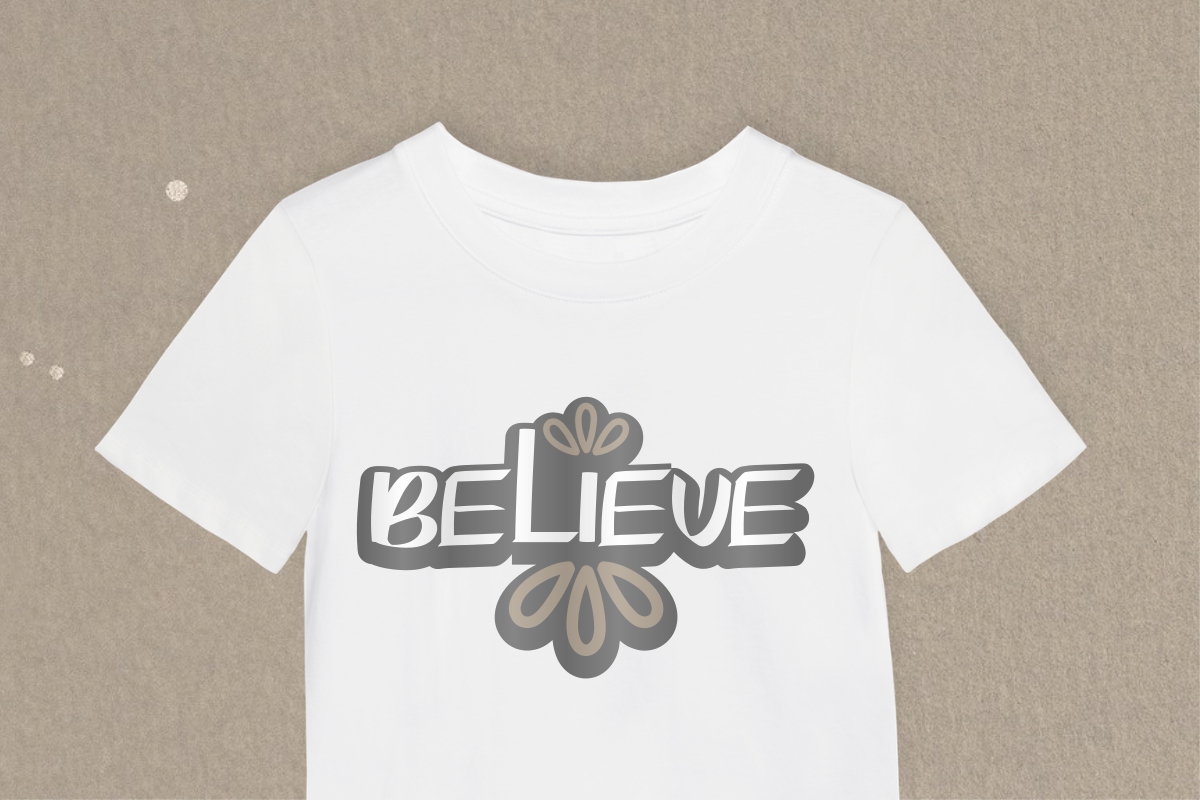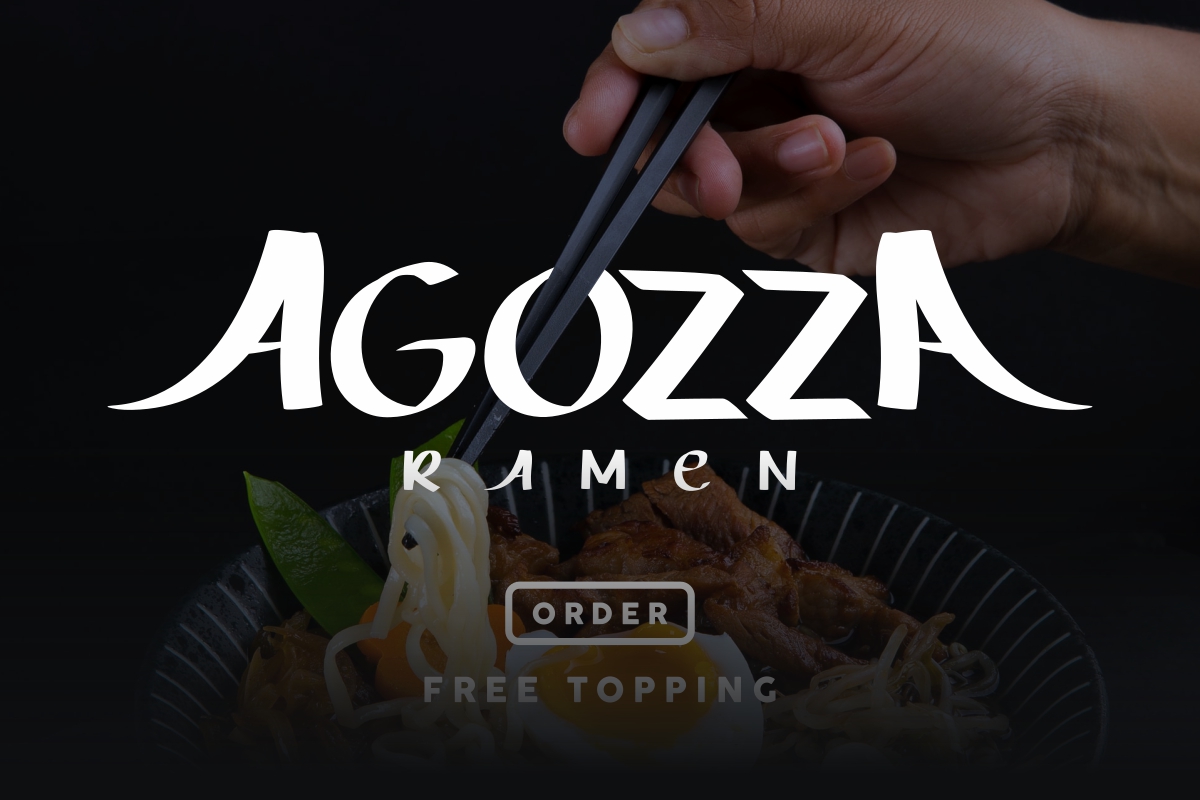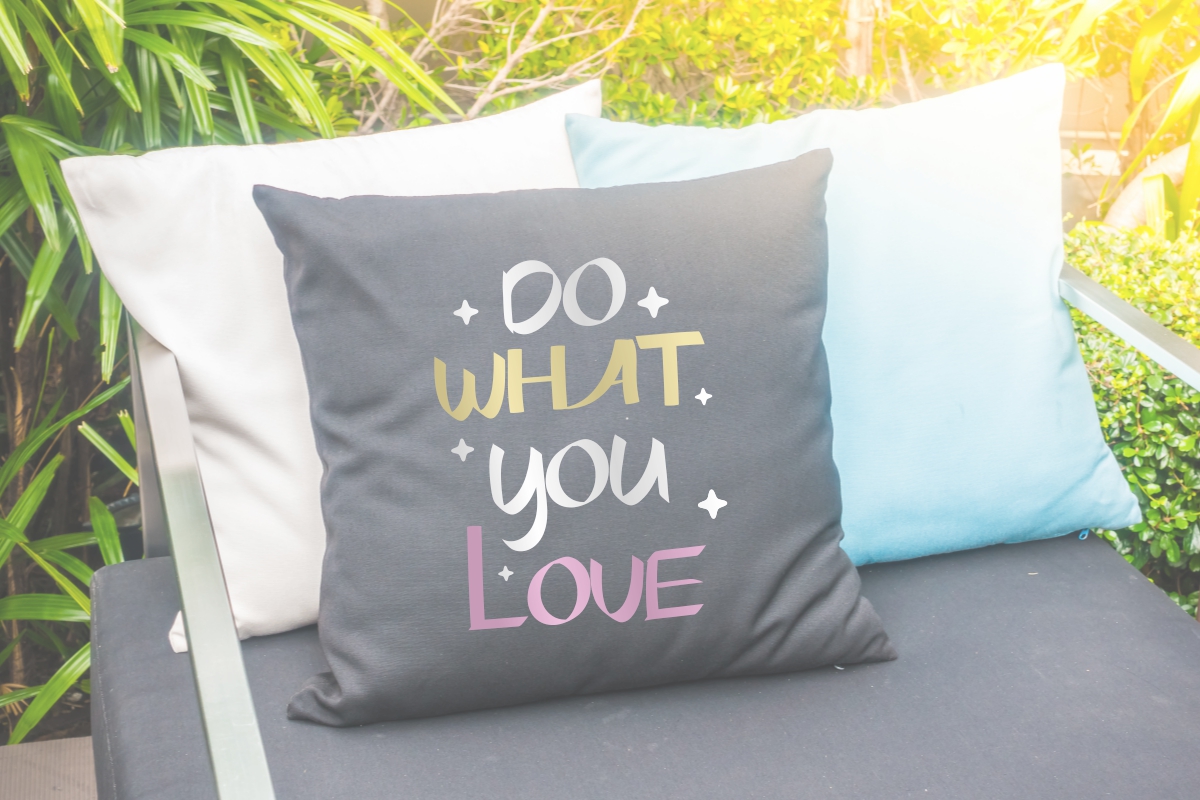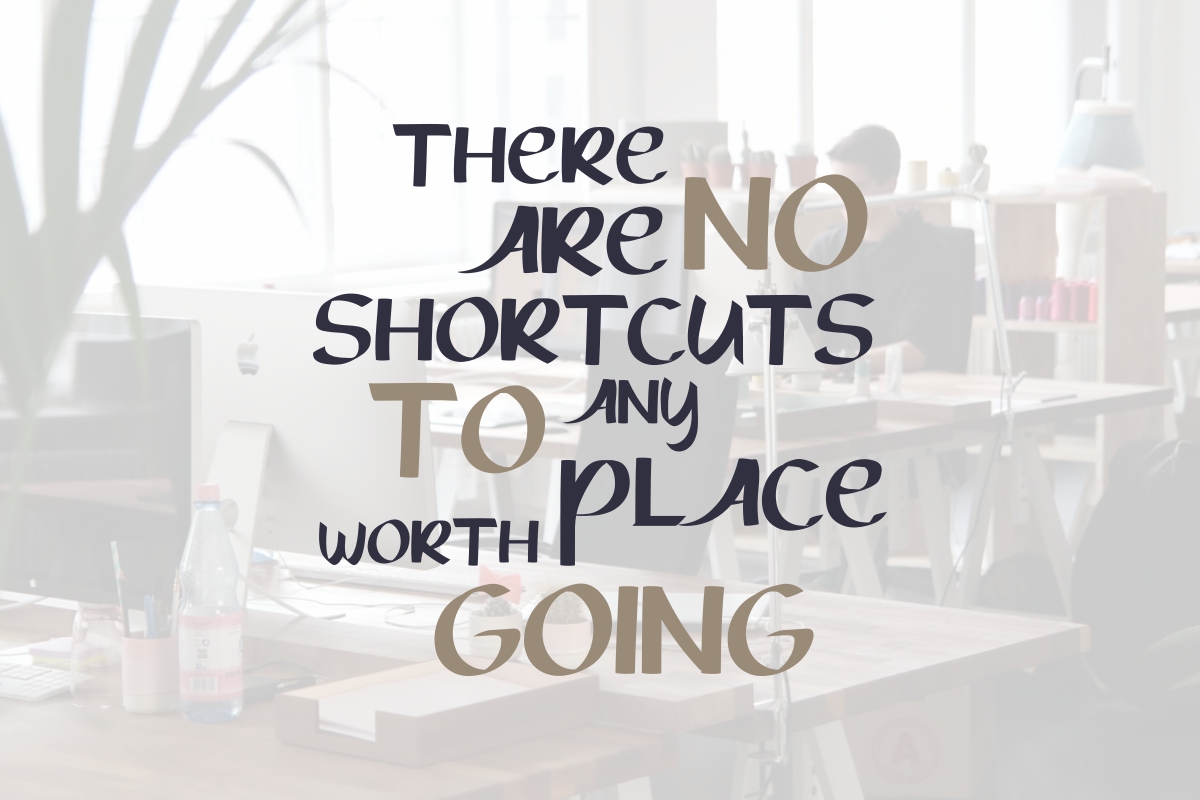
Lifebest Fancy Font
Lifebest Fancy Display Font
This is a fancy script font with unique style. It was made in our Studio, Indonesia. Lifebest Font is an exclusive handmade font with unique styles : fun, casual, stylish and classic style. It has a great characters set, perfectly managed with well spaced and kerning.